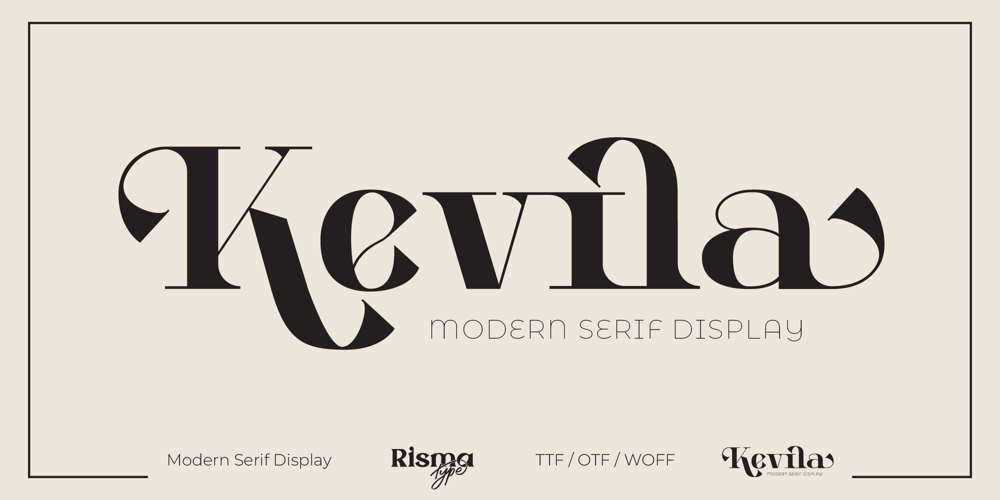
Kevila
Kevila font
Kevila Font Family was designed by Risma Mulyasari and published by Risma Type. Kevila contains 2 styles and family package options. Kevila is a sophisticated modern serif display font that strikes the perfect balance between elegance and boldness. With its sharp serifs, clean lines, and distinctive character, Kevila is designed to elevate any design project. Ideal for high-end branding, editorial work, and any design that calls for a polished, yet powerful statement, this font brings a touch of modern luxury to your creations.Key Features: Refined modern serif design Balanced, bold letterforms with elegant serifs Available in various styles for versatile use Perfect for branding, editorial design, and high-end digital media Multi-language support to reach a global audience Designed to make a stylish, impactful impression with a contemporary feel “Transform your designs with Kevila – a modern serif that adds sophistication and strength to any project.”